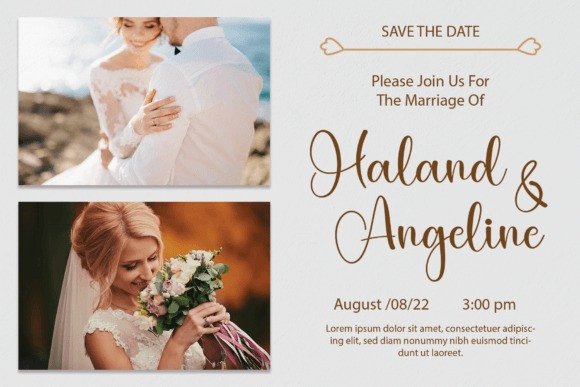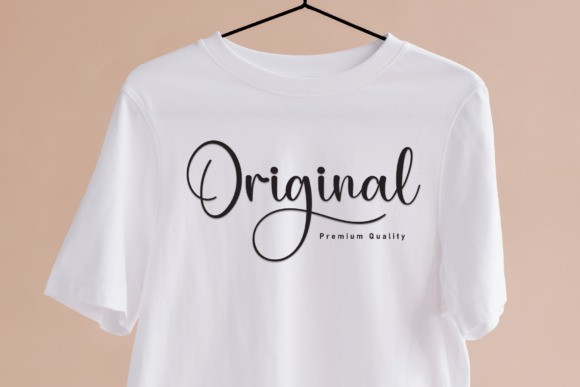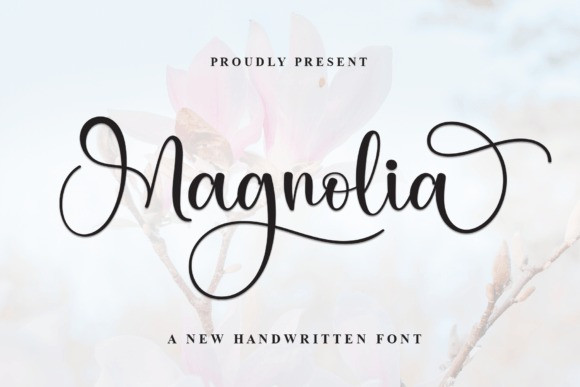
Magnolia Handwriting Font
Magnolia Handwriting Font is a fun and versatile handwritten font. Whether you’re using it for crafting, digital designing, presentations, or greeting card making, it’s perfect!